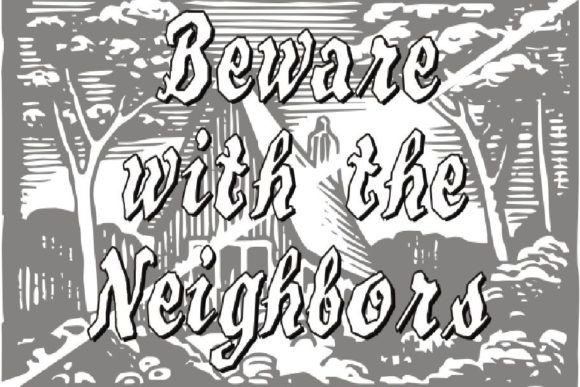
Welcome to the world of Beware the Neighbors Font, where vintage charm meets haunting elegance. Designed by Intellecta Design, this display font is a must-have for anyone seeking the best fonts for vintage books.
Drawing inspiration from the iconic "Personality Script" by Ross F. George, originally featured in the esteemed Speedball lettering catalogs of the mid-20th century, Beware the Neighbors Font captures the essence of a bygone era. But it doesn't stop there – this font offers a unique twist that sets it apart from other interpretations.
Unlike its geometric counterparts, Beware the Neighbors Font embraces the use of sumptuous curves and smooth lines, resulting in a truly eerie and captivating appearance. This new interpretation breathes life into the letters, adding an element of mystery and intrigue to your designs.
But that's not all! When you choose Beware the Neighbors Font, you not only get access to its enchanting aesthetics, but also a plethora of additional features to enhance your creative journey. Discover a treasure trove of ligatures and OpenType stylistic alternates, allowing you to customize and elevate your designs with ease.
Imagine the possibilities – whether you're designing a vintage book cover, crafting an evocative logo, or adding a touch of nostalgia to your website, Beware the Neighbors Font will be your trusted companion. Its versatility knows no bounds, effortlessly capturing the attention of your audience and leaving a lasting impression.
Indulge your senses with the captivating charm of Beware the Neighbors Font. Let it transport you to a world filled with whispers of forgotten tales and hidden secrets. Its hauntingly elegant presence will not only captivate your audience but also evoke the emotions that make your designs truly unforgettable.
Embrace the power of Beware the Neighbors Font and unlock a realm of creativity that will set you apart from the crowd. Join countless designers who have already fallen under its spell and experience the magic for yourself.